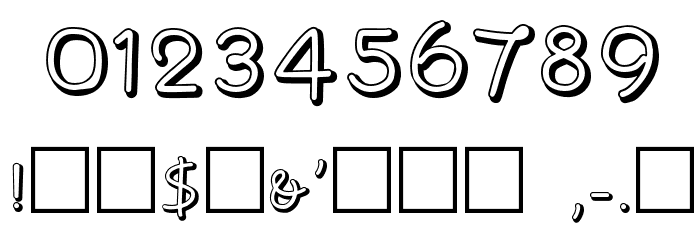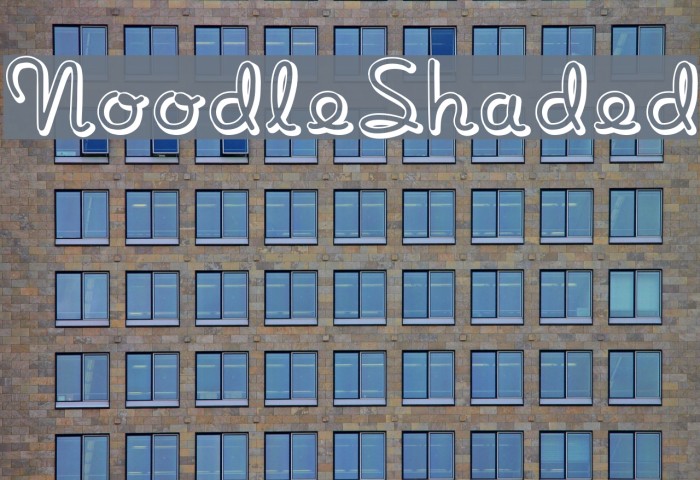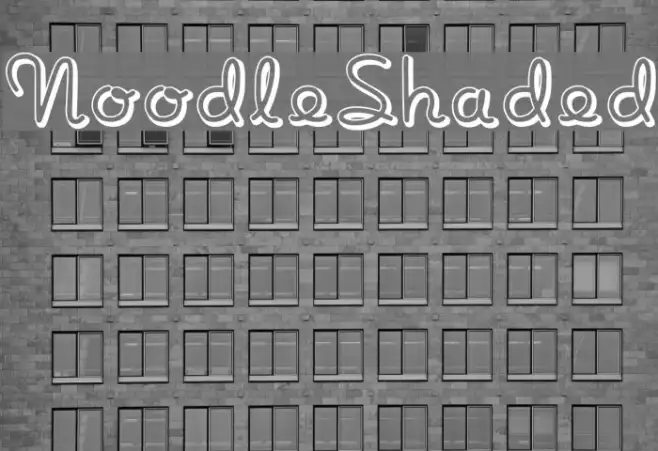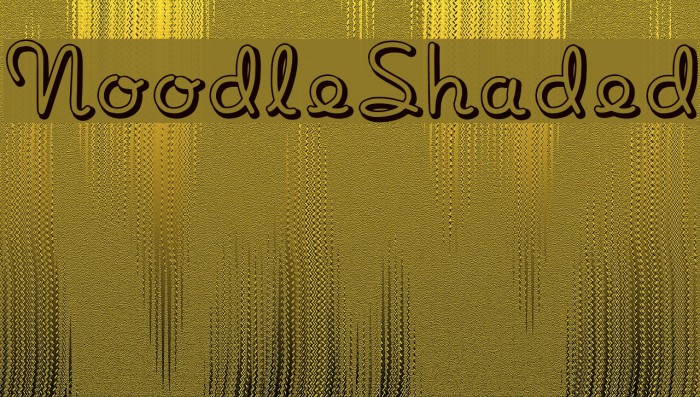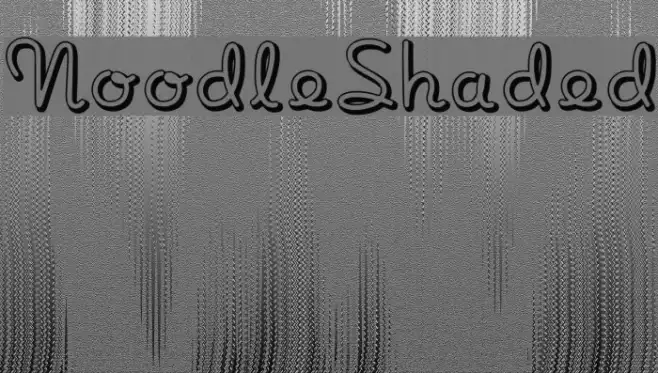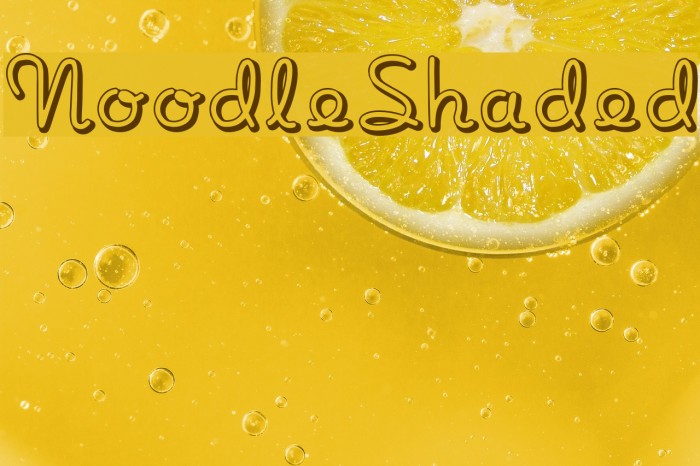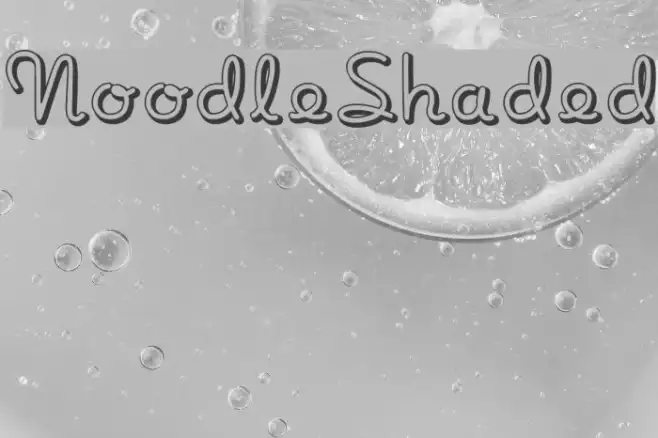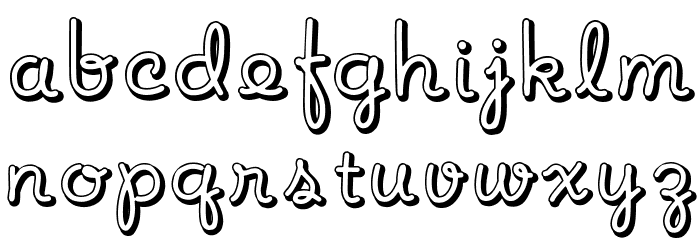
NoodleShaded Font
NoodleShaded Description
This font features a playful and whimsical design with a shaded outline that gives it a three-dimensional effect. The characters are rounded and have a hand-drawn appearance, adding a friendly and approachable feel. The uppercase and lowercase letters maintain a consistent style, with smooth curves and a slight slant that suggests movement. The numerals are clear and easy to read, matching the overall aesthetic of the alphabet. Special characters are included, maintaining the same playful style. This font is ideal for projects that require a fun and informal touch.